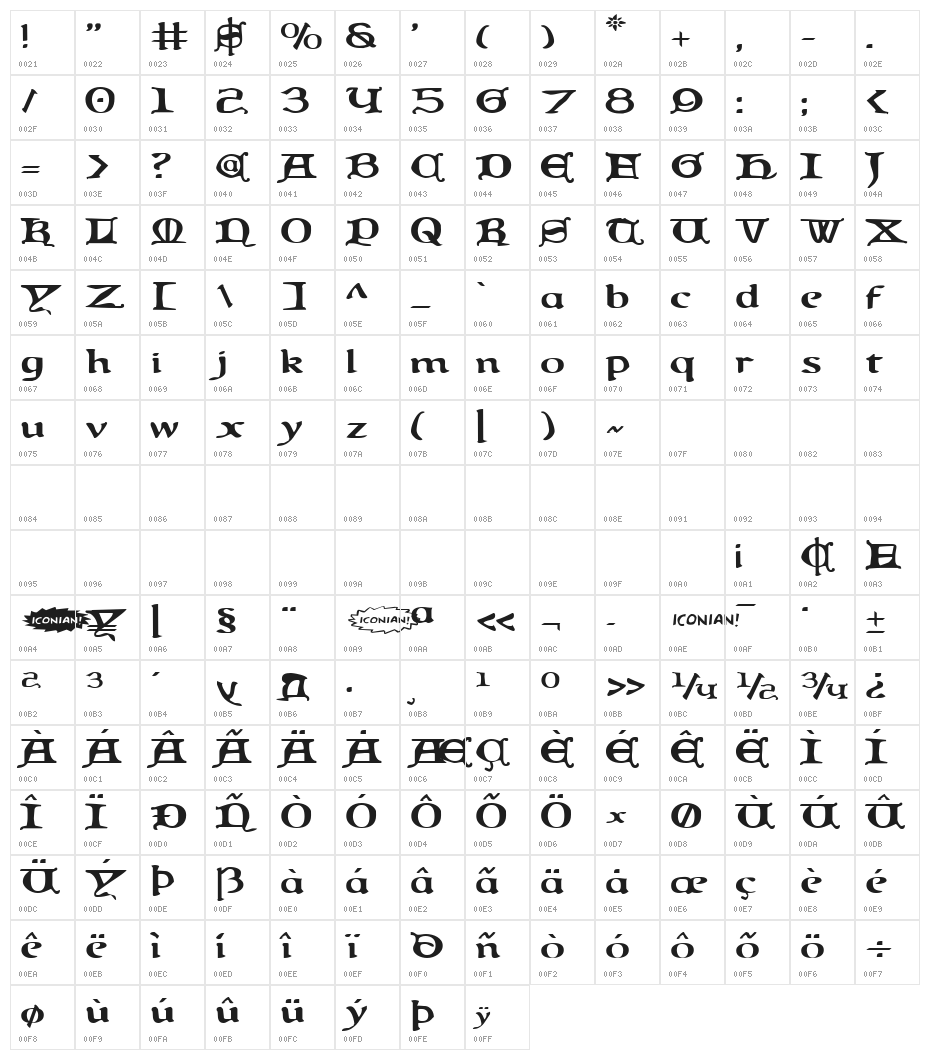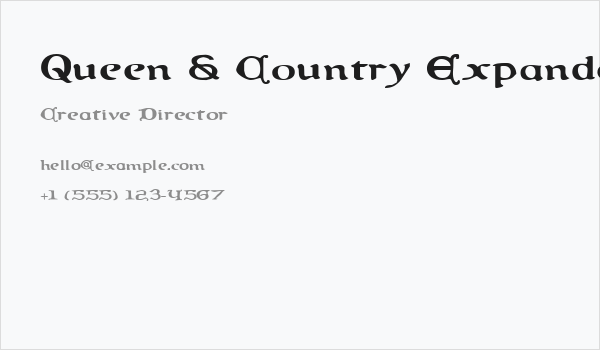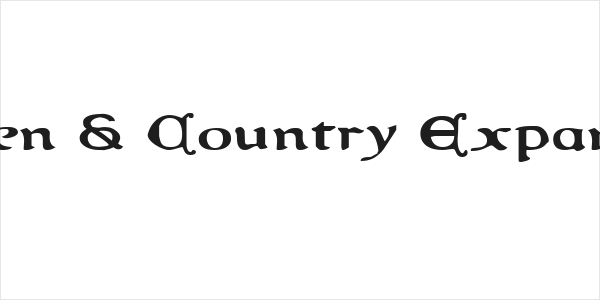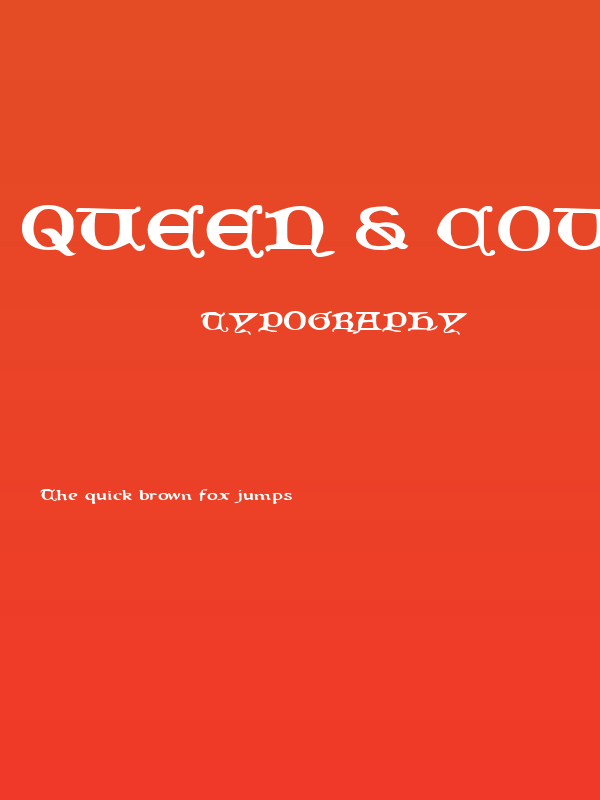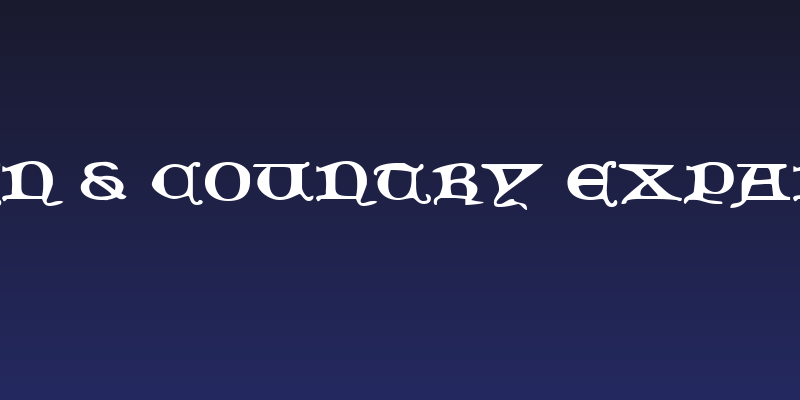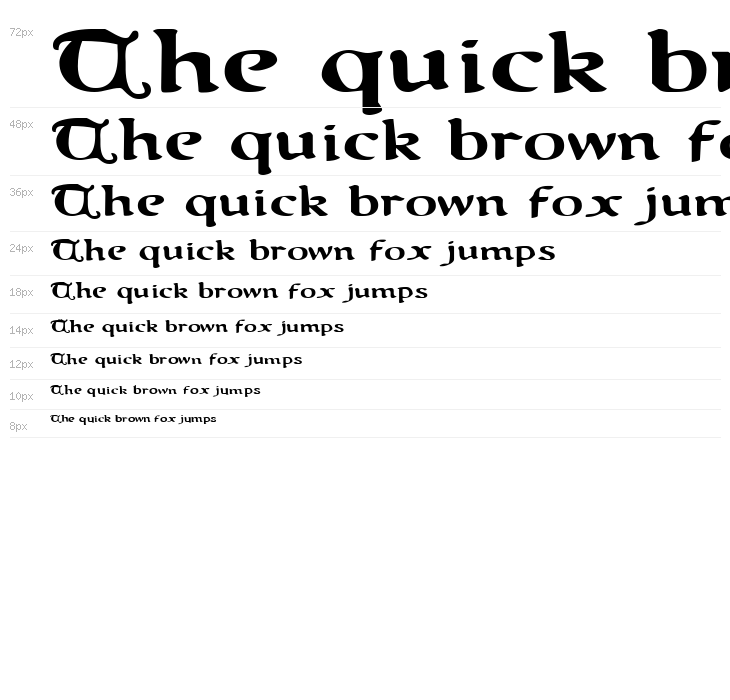
Queen & Country Expanded Font
Queen & Country Expanded Description
This font features a unique blend of traditional and modern elements, characterized by its bold and decorative style. The uppercase letters exhibit a strong presence with intricate curves and sharp edges, creating a sense of elegance and authority. The lowercase letters maintain a consistent flow, offering a harmonious balance with the uppercase. Numbers are designed with a similar aesthetic, ensuring readability while maintaining the font's distinctive style. Special characters are thoughtfully crafted to complement the overall design, making this font versatile for various applications.